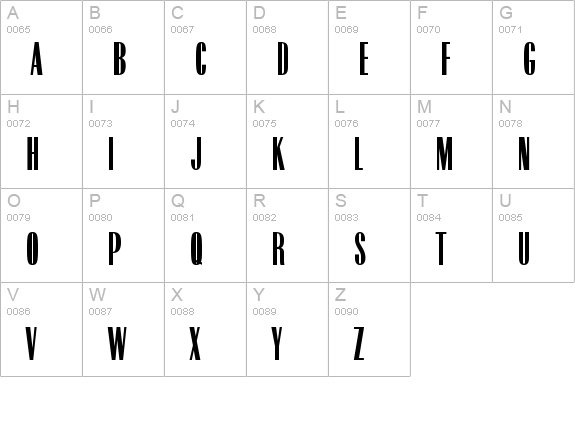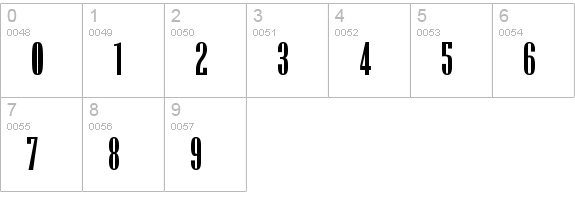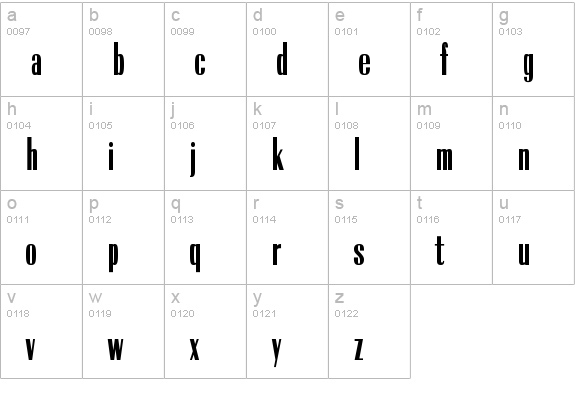
OPTIRadiant-BoldXCond Font Details
OPTIRadiant-BoldXCond font is a modern and stylish typeface designed for attention-grabbing headlines and bold statements. With its condensed form and bold weight, it exudes a sense of strength and confidence. The sharp edges and clean lines give it a sleek and professional look, perfect for various design projects. What makes OPTIRadiant-BoldXCond font even more appealing is that it is available for free download at FontsMarket.com. This means you can easily access this versatile font and use it in your personal and commercial projects without any cost. Whether you're designing posters, logos, or branding materials, OPTIRadiant-BoldXCond font will make your text stand out with its impactful presence. Elevate your designs with this striking and versatile typeface today!